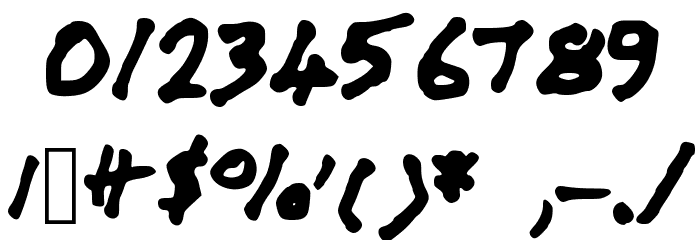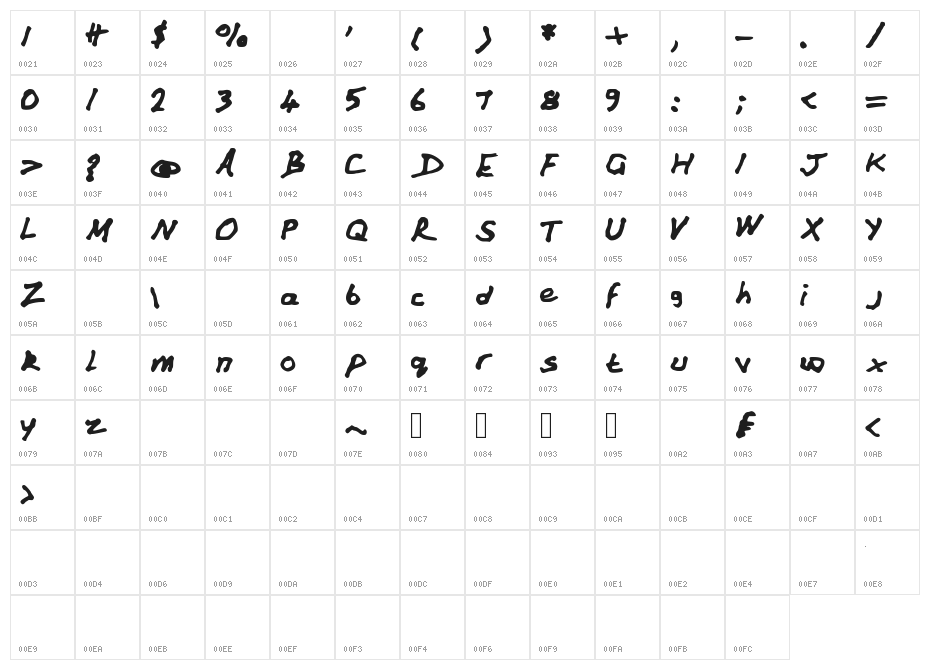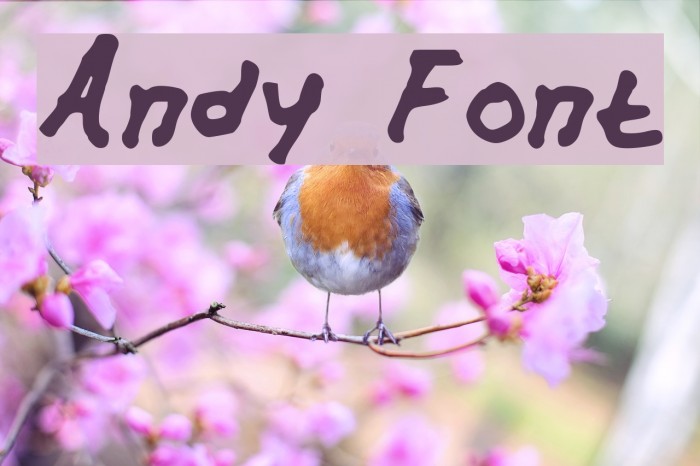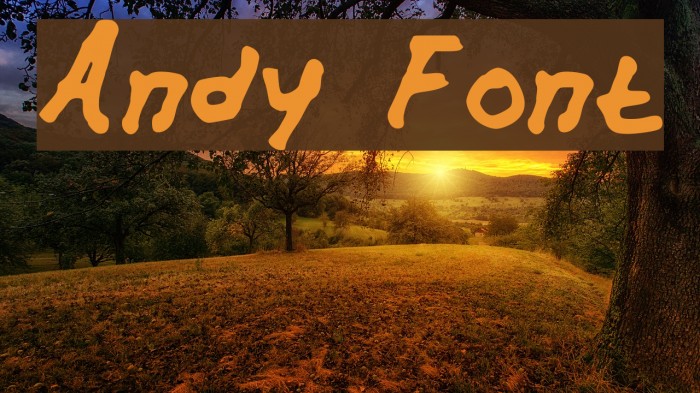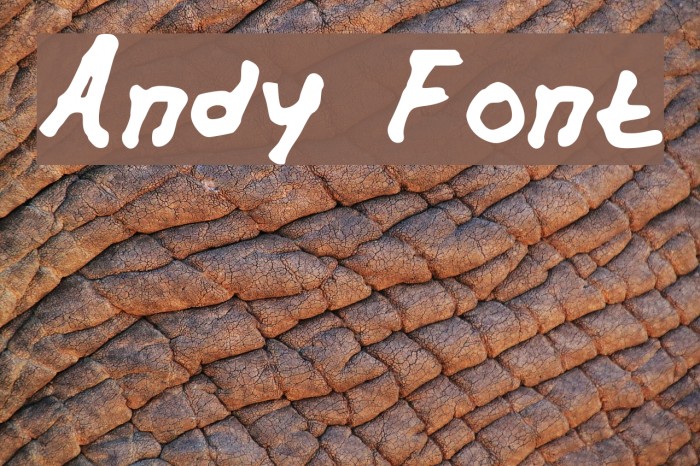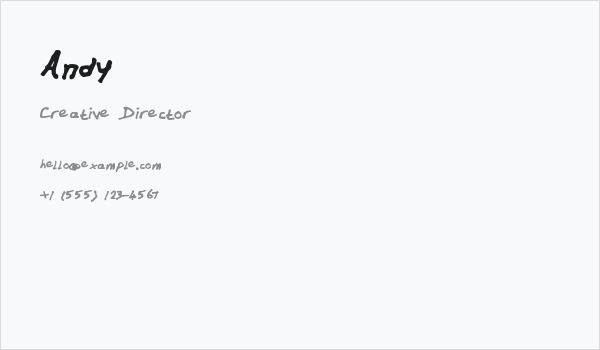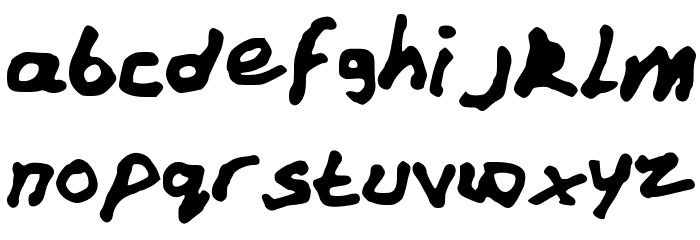
Andy Font
Andy Description
This font exudes a bold and expressive handwritten style, characterized by its thick, uneven strokes and dynamic flow. The letters are crafted with a sense of spontaneity, giving it a lively and energetic appearance. The uppercase and lowercase letters maintain a consistent style, with rounded edges and irregular shapes that add to its casual charm. The numbers and special characters follow the same aesthetic, ensuring a cohesive look across all elements. This font is perfect for projects that require a personal touch or a creative flair.